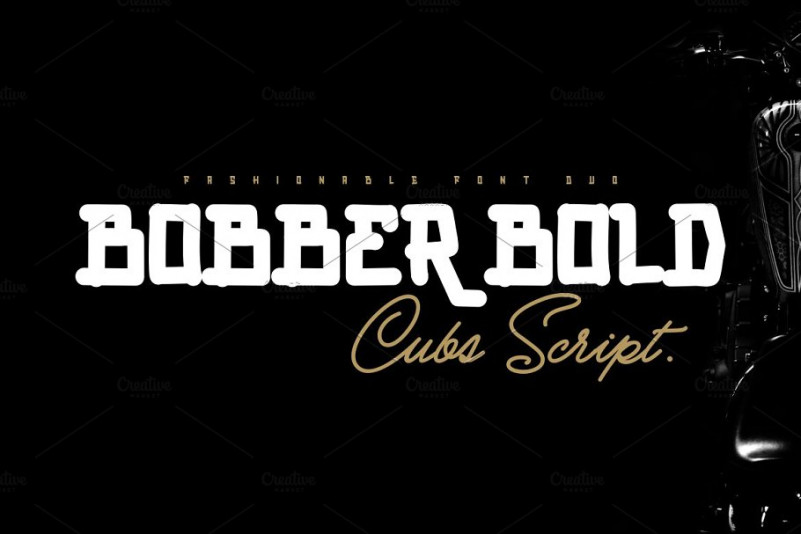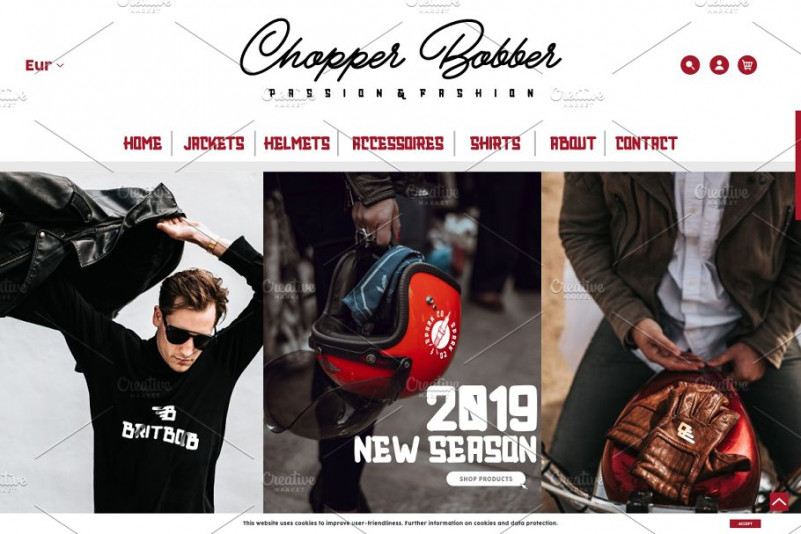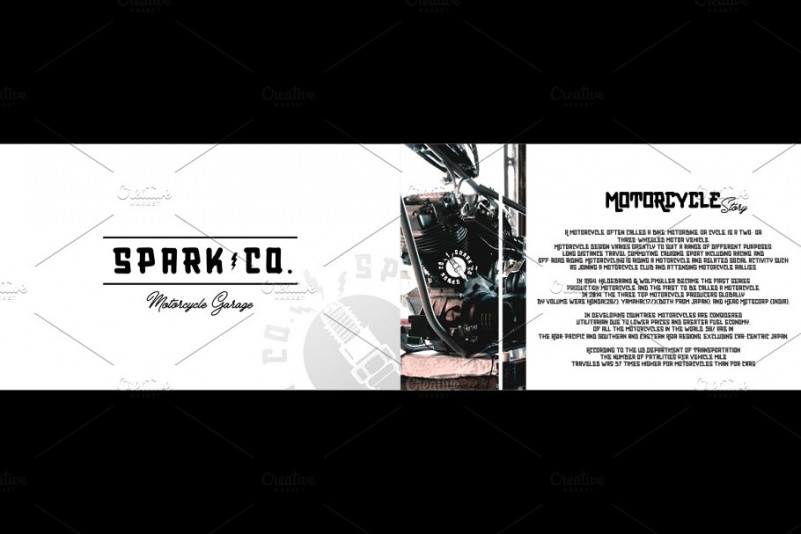
BOBBER BOLD & Cubs Font
when you see all glyphs of BOBBER BOLD, its really like a rear wheel Bobber style, thick, filled and powerfull, combine with Cubs Script, really eyescathing, Modern and fresh, very supportive for you needs, make somethink differnt can into all genre in society now. not only writing, but giving character to writing, which will be able to give a different impression.